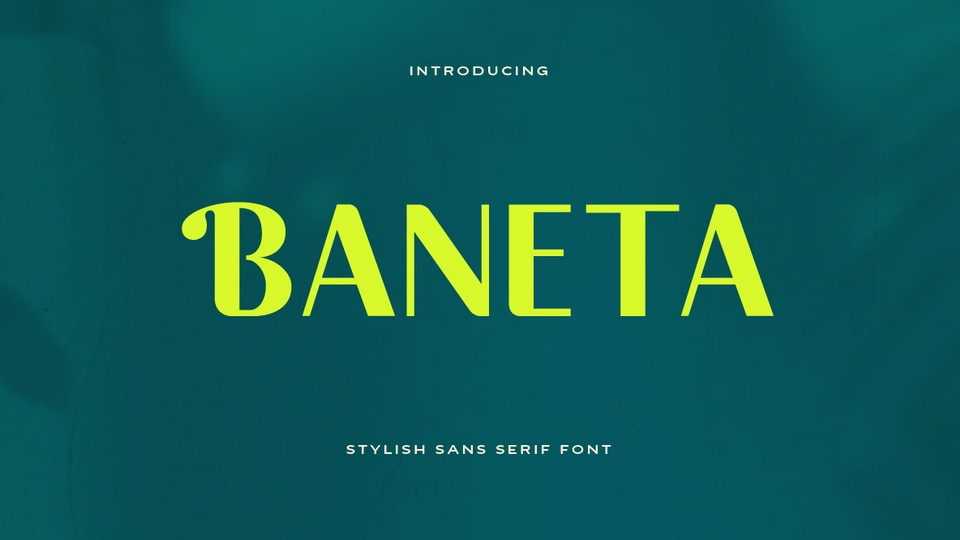
Download Baneta font, a modern, clean typeface characterized by its simplicity, elegance, and legibility that distinguished by the lack of serifs.
Designer: Yukita Creative